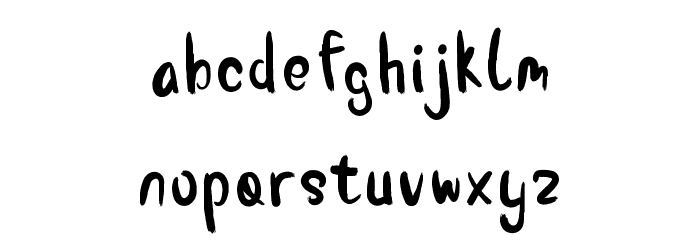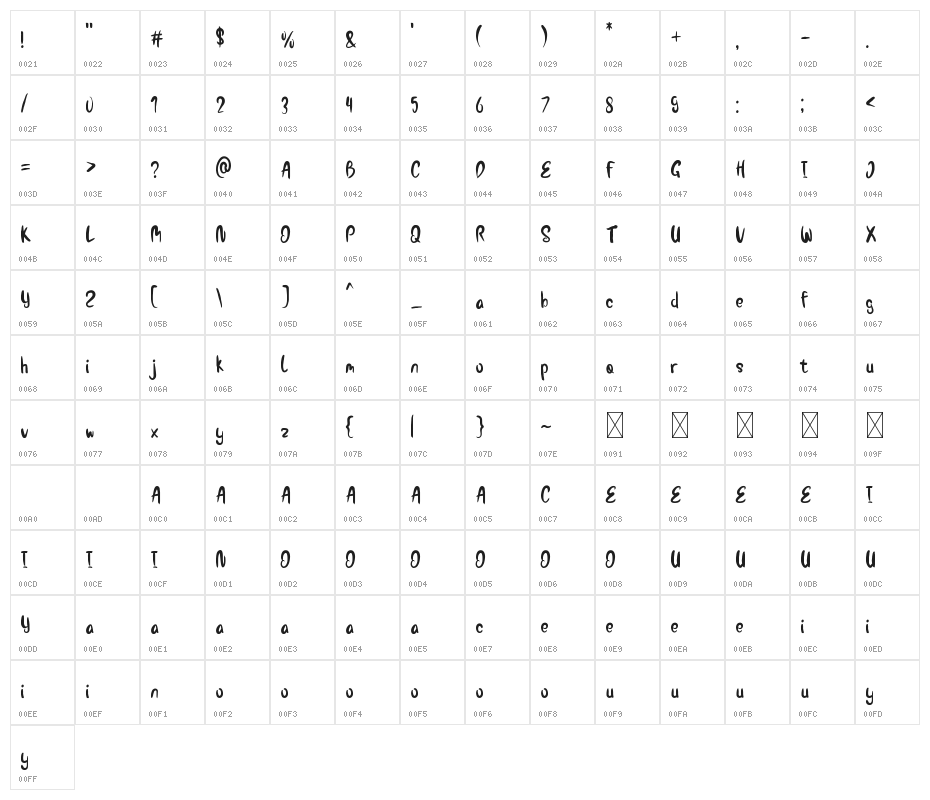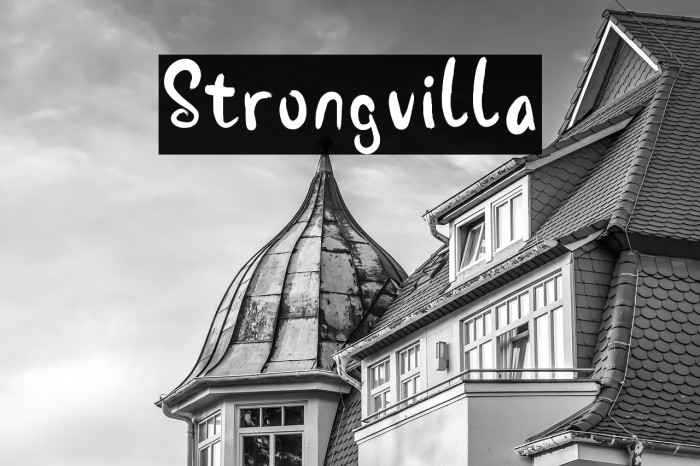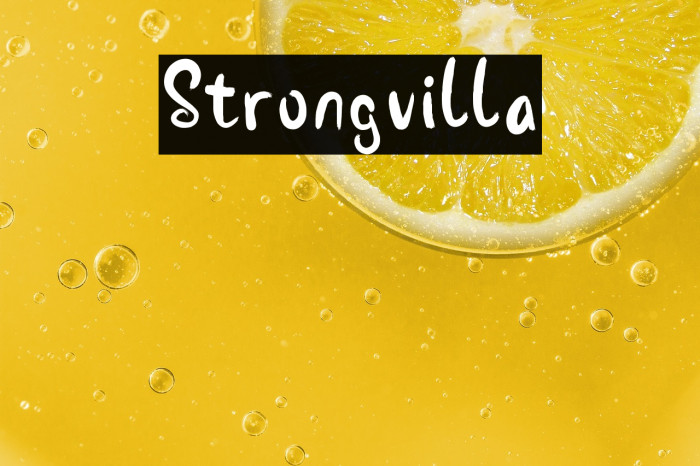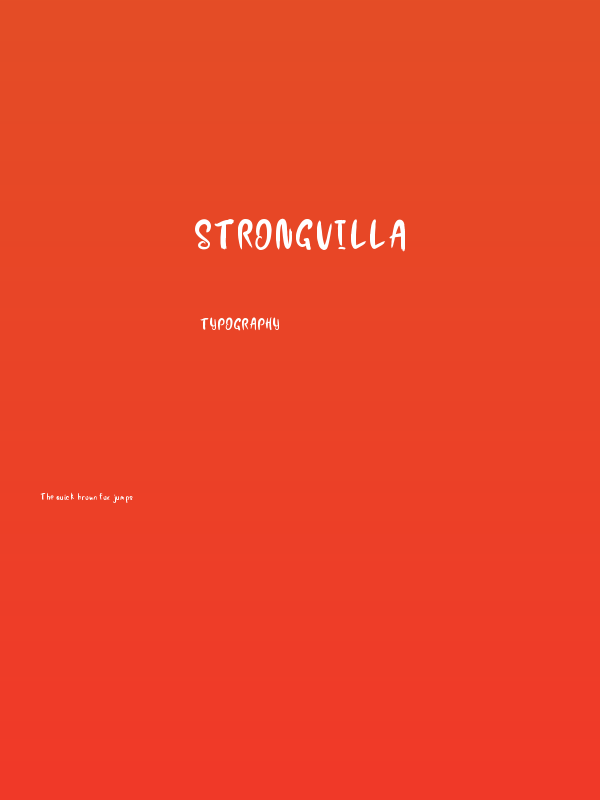
Strongvilla Font
This font features a bold and expressive handwritten style, characterized by its fluid and dynamic strokes. The letters have a playful and artistic flair, with varying thickness that adds a sense of movement and energy. The uppercase and lowercase letters maintain a consistent style, while the numerals and special characters complement the overall design. This font's unique personality makes it stand out, offering a modern yet casual aesthetic that is both approachable and stylish.
A bold, expressive handwritten font with dynamic strokes and a playful style.
- Proposed Projects: Ideal for branding projects, creative posters, social media graphics, and invitations where a personal touch is desired.
- Overall Style: Modern, Decorative